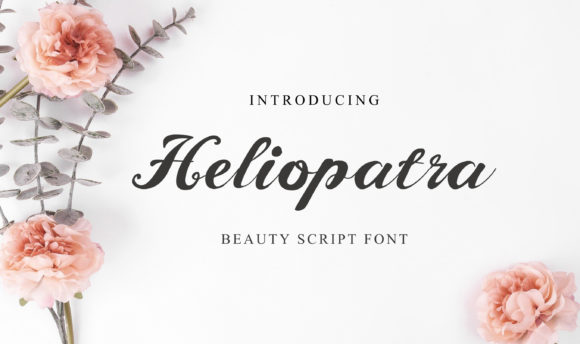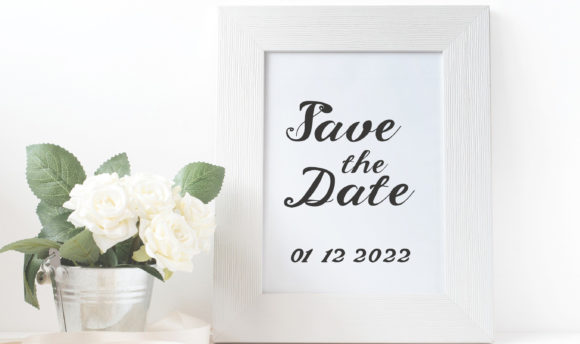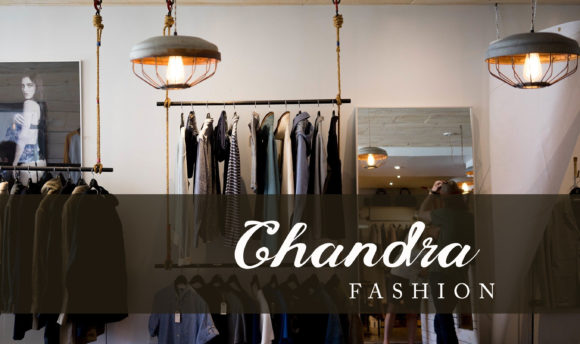
Heliopatra Font
About Heliopatra Font
Heliopatra is a beautiful and modern handwritten font with an elegant look. This font can be applied to your digital products or print designs. Get creative using this font!